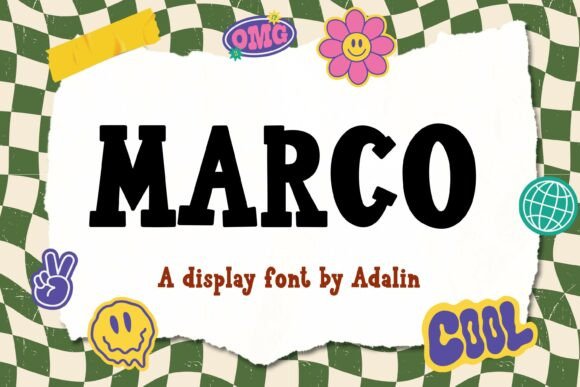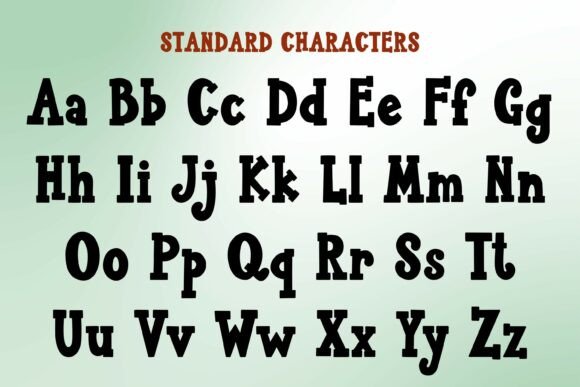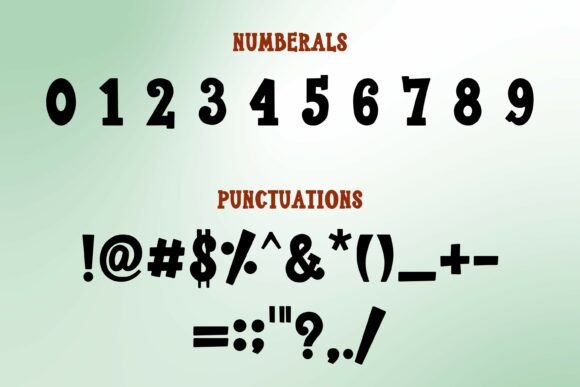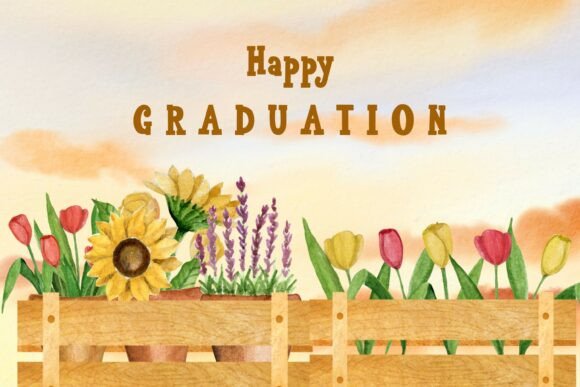
Macro Font: Groovy Retro Display Font for Playful Branding!
About the Macro Font
Experience the unique personality of Macro Font, a font designed for impact. Marco is a chunky, confident display font with a playful retro soul. Inspired by vintage signage and groovy aesthetics, this font brings instant charisma to posters, branding, kids’ merch, or social media graphics. Its blocky serifs and curved lines make it both eye-catching and fun!
Macro Font excels in headline treatments, logos, and short, impactful messaging. Its retro charm works wonders for projects with a playful or nostalgic feel, particularly in branding for food, entertainment, or children’s products. Avoid using it for body text or lengthy paragraphs; its chunky nature makes extended reading difficult.
Pairing Macro Font with a clean sans-serif like Open Sans for body copy creates a strong contrast, balancing its playful energy with readability. For a more vintage feel, consider pairing it with a classic serif like Garamond, allowing Macro to shine as a striking display font.
The overall personality of Macro Font is bold and friendly, with a retro twist. Its confident, yet approachable aesthetic makes it ideal for brands aiming for a fun, memorable, and slightly unconventional image.
Macro Font Usage Examples
Macro Font Example